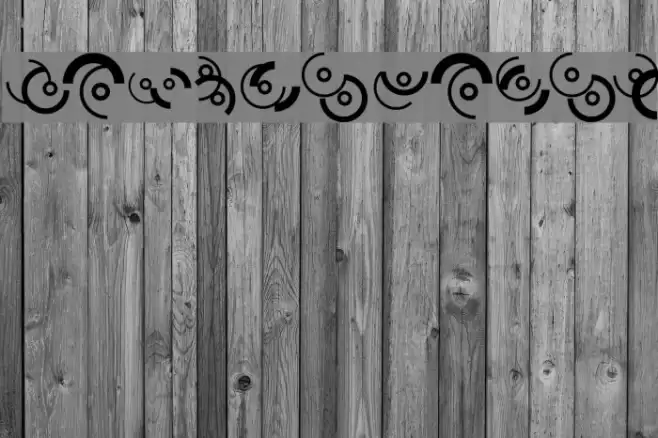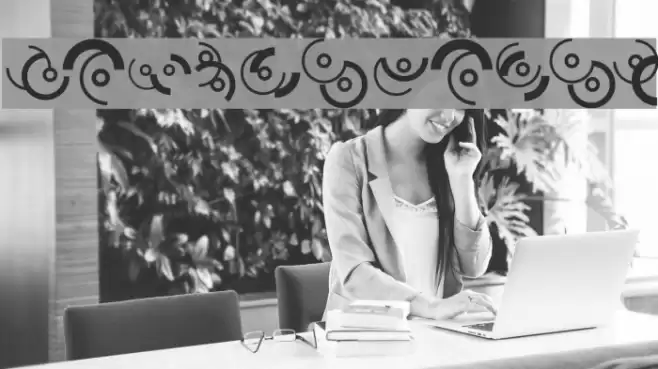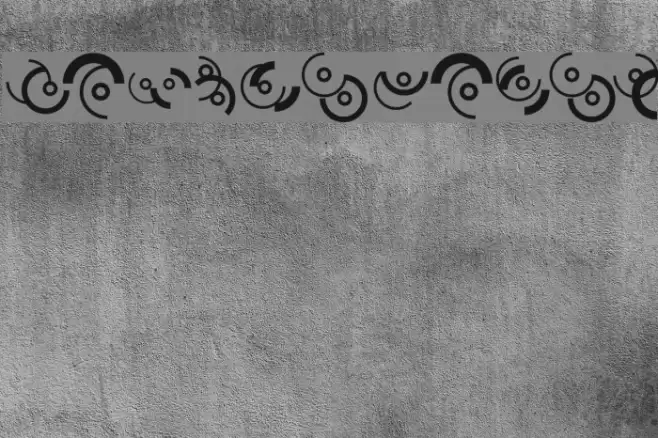
CircleMixes Font
CircleMixes Description
This design features a highly decorative and abstract style, characterized by swirling, circular motifs that create a sense of movement and fluidity. The characters are composed of bold, thick strokes that form intricate loops and curves, giving each letter a unique and artistic appearance. The overall look is reminiscent of calligraphic art, with a modern twist that incorporates geometric elements. This style is visually striking and captures attention with its elaborate and ornate design, making it suitable for creative and artistic projects.
An abstract, decorative font with swirling, circular motifs and bold strokes from Uncategorized fonts.